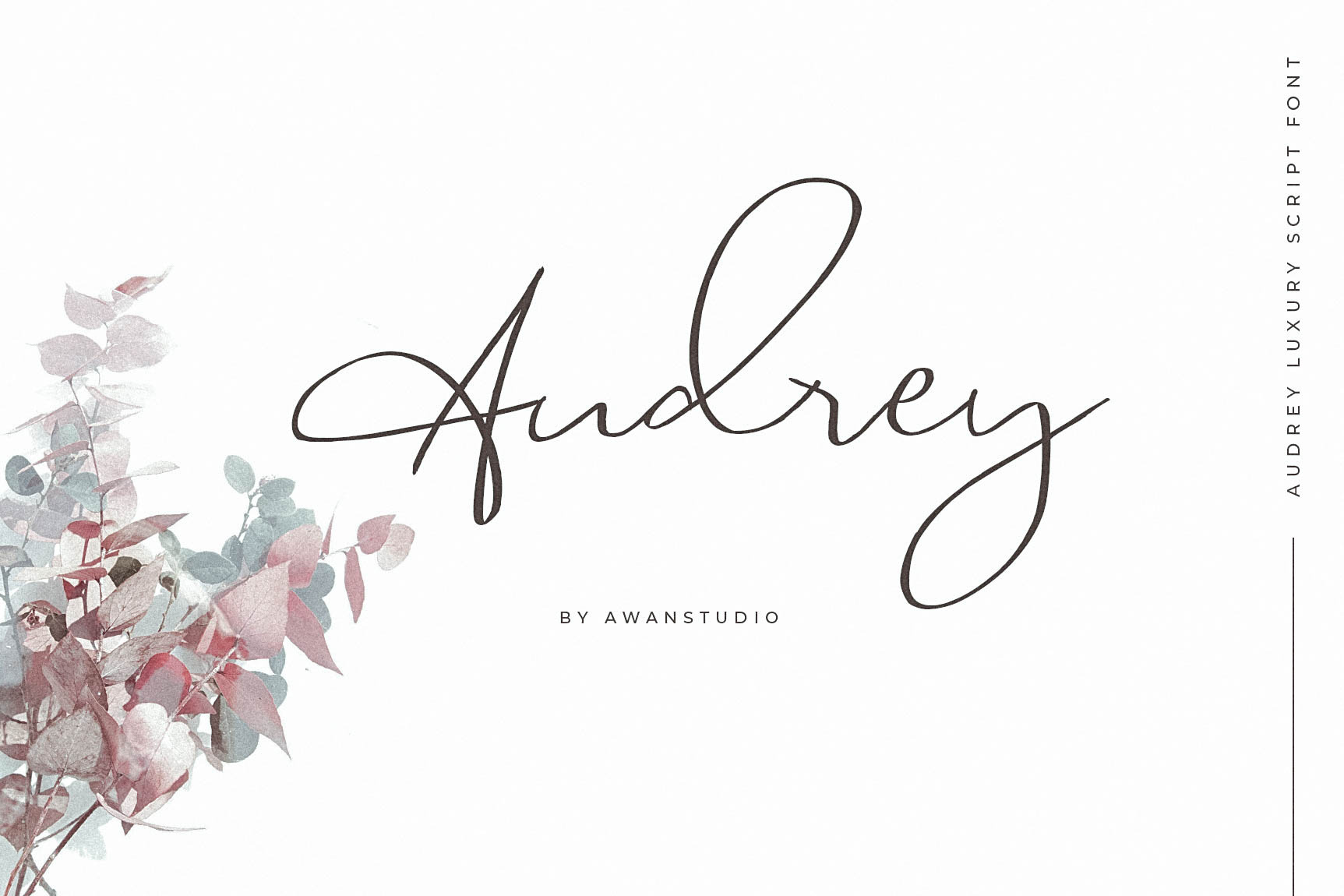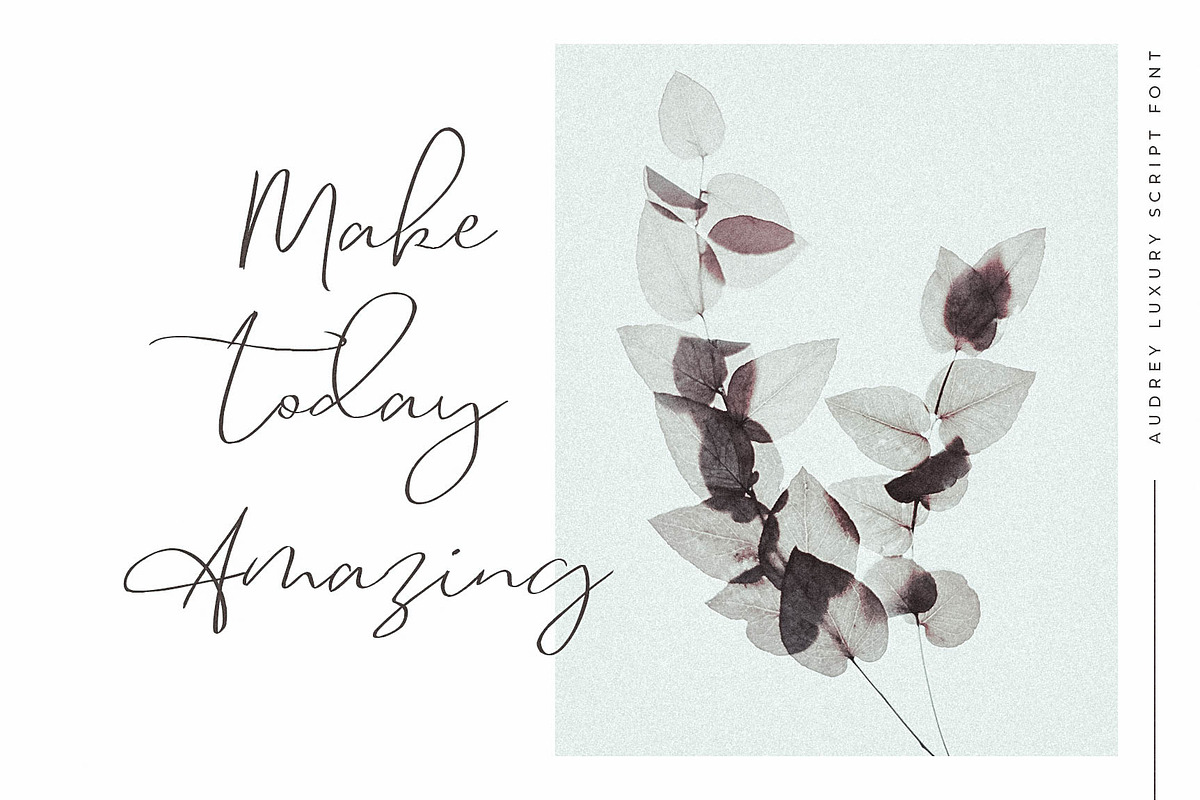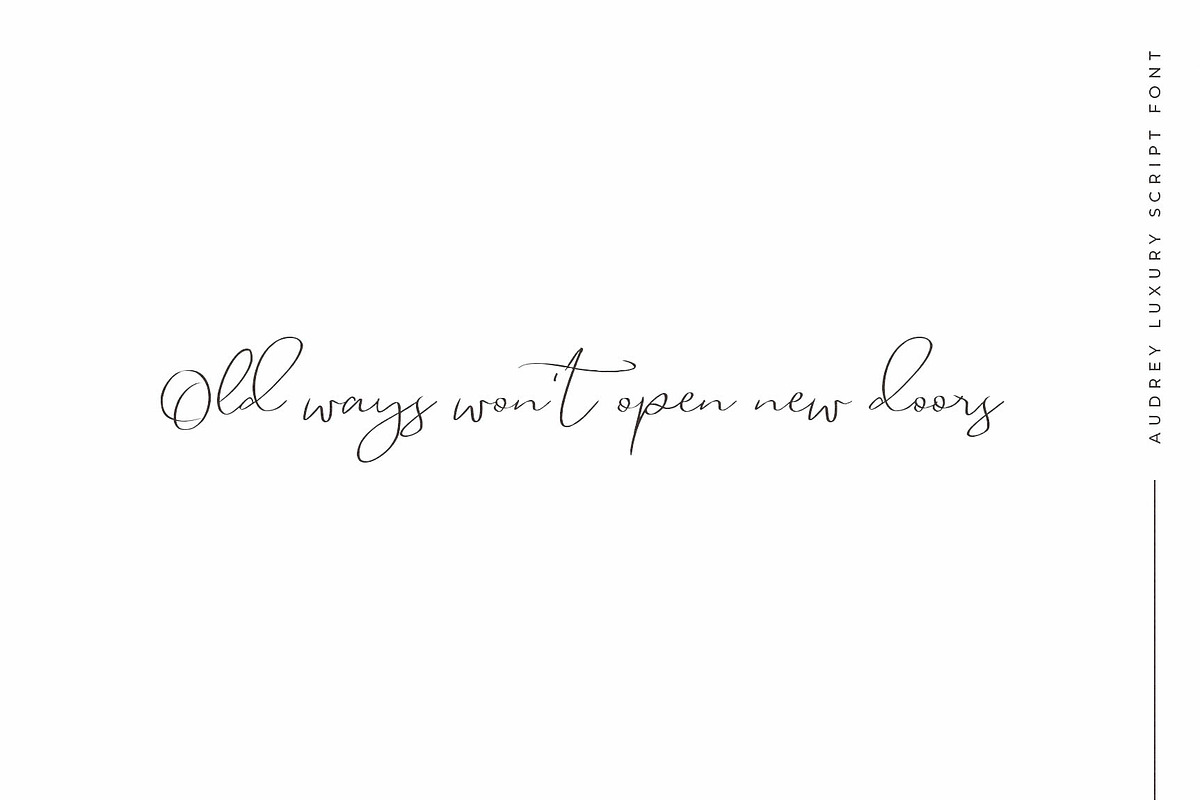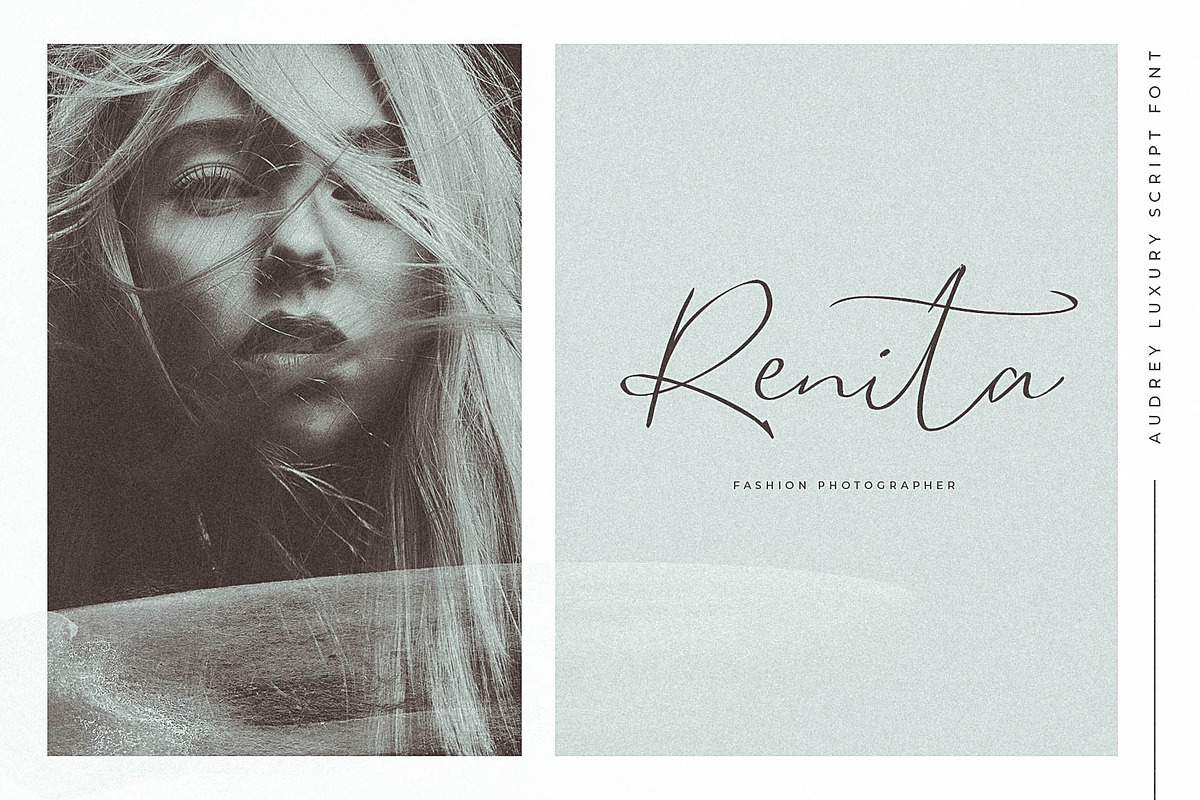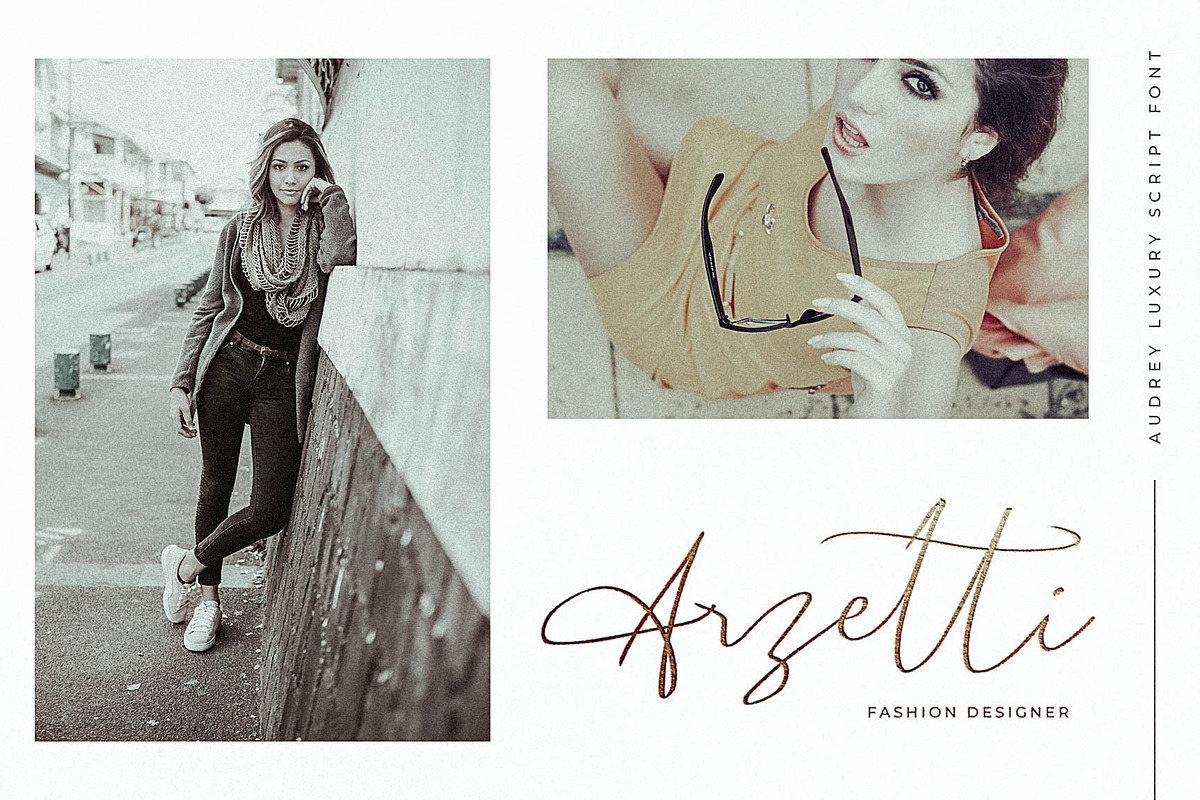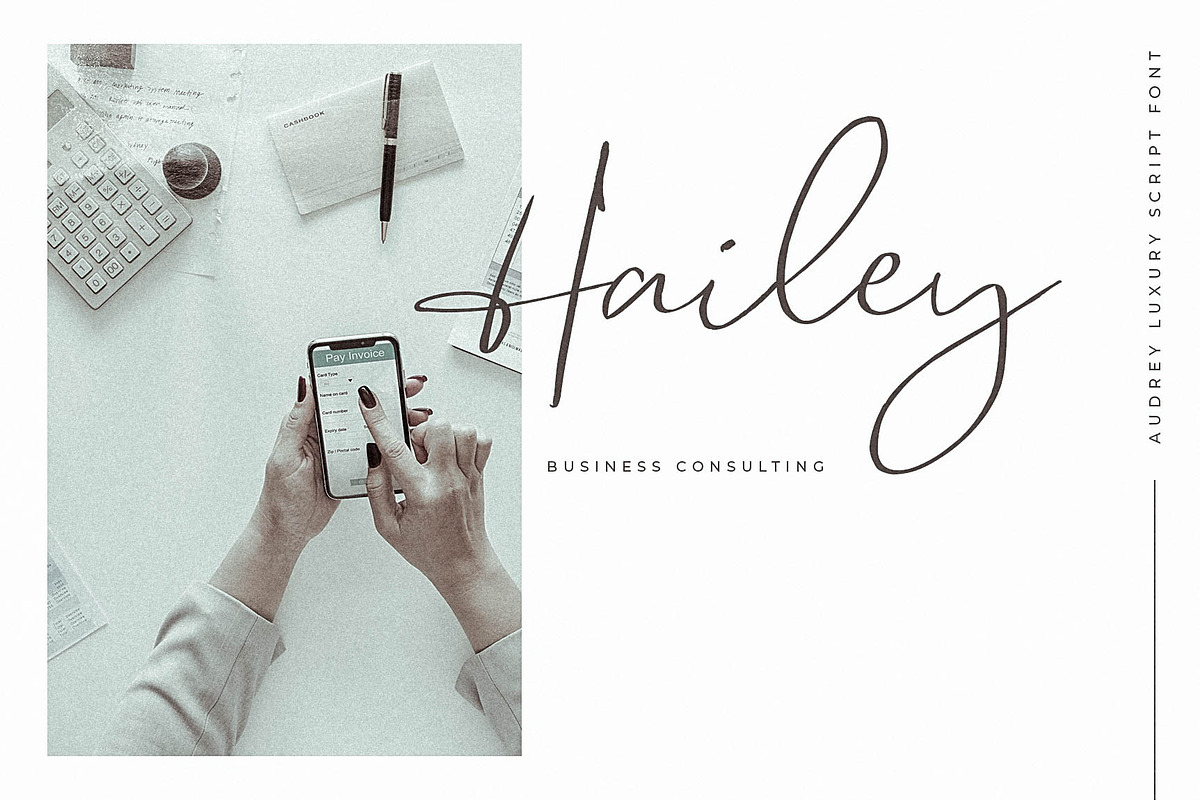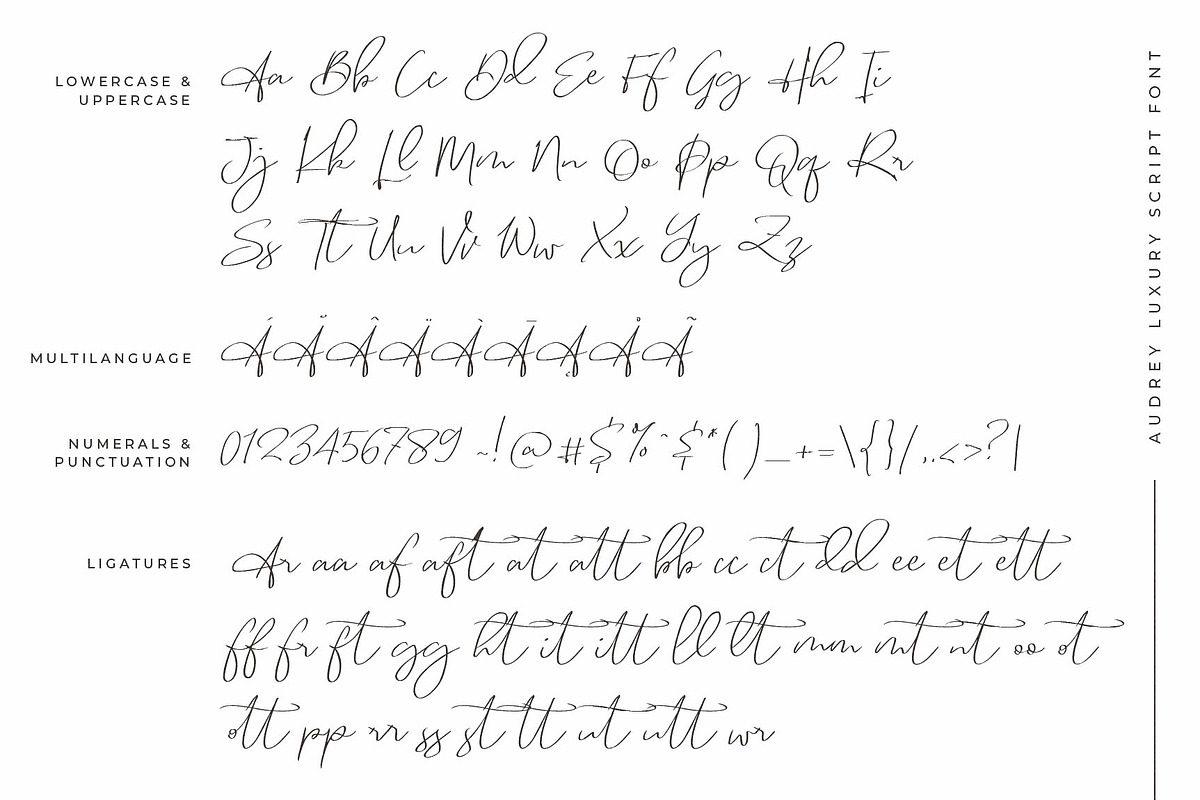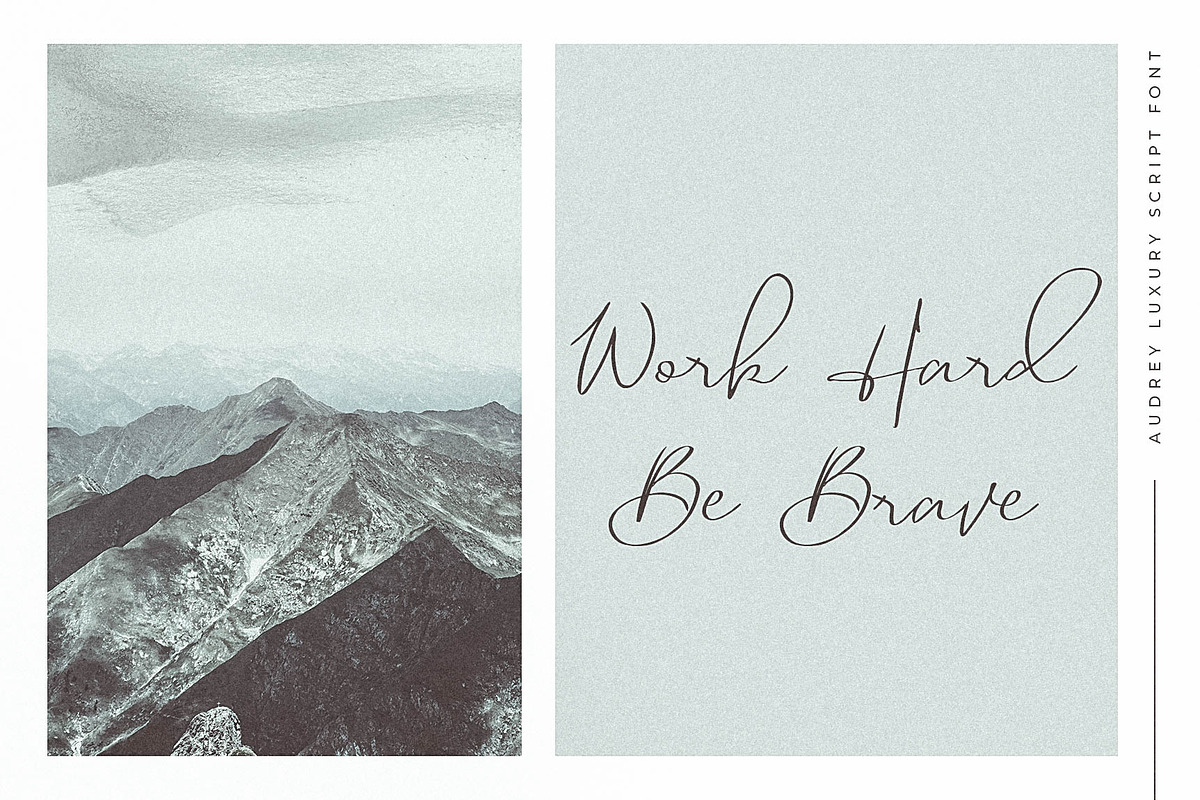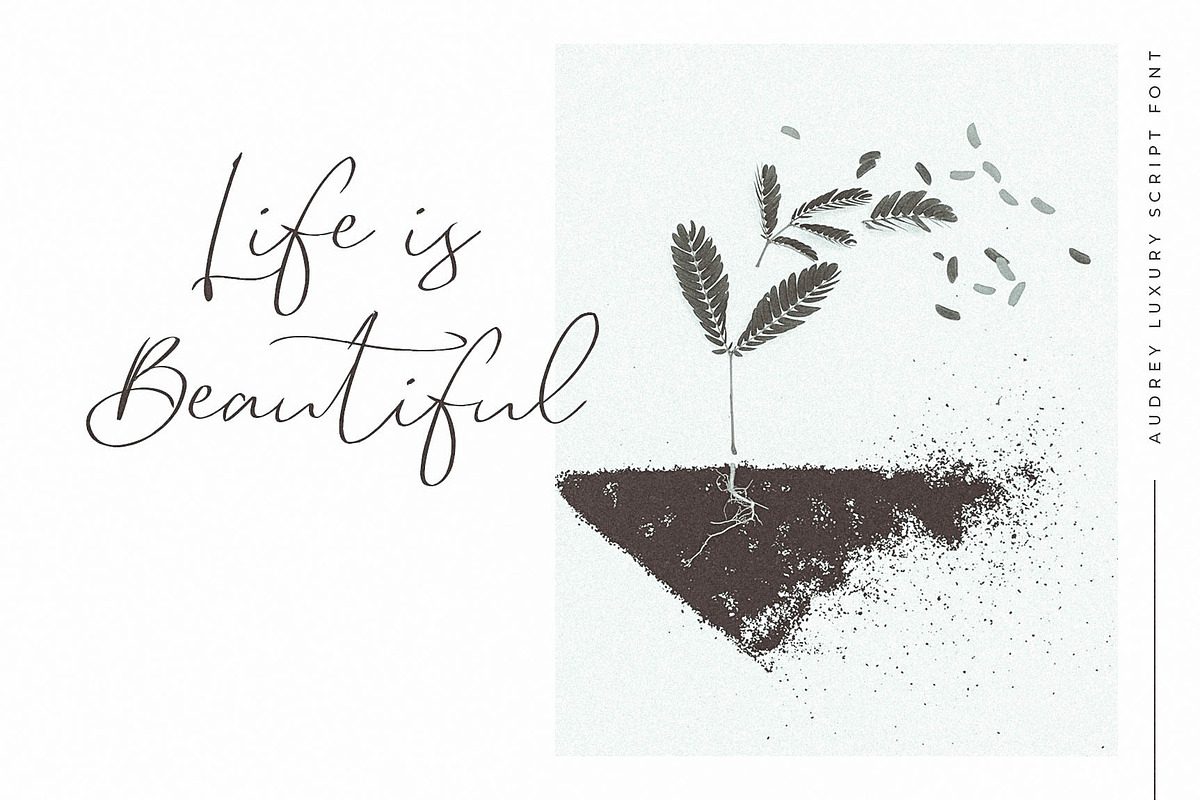
Audrey | Luxury Script Font
Audrey! It allows you to create stunning and easy hand-lettering in an instant. Ideal for the logo, quotes, wedding, product label/packaging, fashion, letter, advertising, invitation, poster, merchandise, greeting cards, etc
- Multilanguage support
AwanStudio